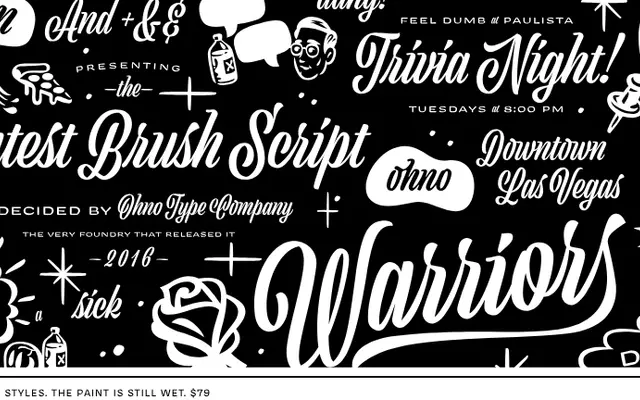
Viktor Script
OH no Type · Erik Marinovich
Viktor Script specimen from OH no Type
A wet-brush script designed in collaboration with lettering artist Erik Marinovich, with a lively, paint-still-wet quality and an all-caps companion style.
Created with lettering artist Erik Marinovich, Viktor Script carries the loose energy of hand-painted brush lettering, including alternate characters, speech bubbles, dingbats and skulls wearing hats. The family is two styles: a lowercase-and-caps script and an all-capitals variant sold separately. Suited to packaging, campaign work and anything that calls for exuberant, hand-done warmth.
A wet-brush script with expressive, hand-painted letterforms; the caps variant confirms its script classification with an all-capitals brush style as a companion.